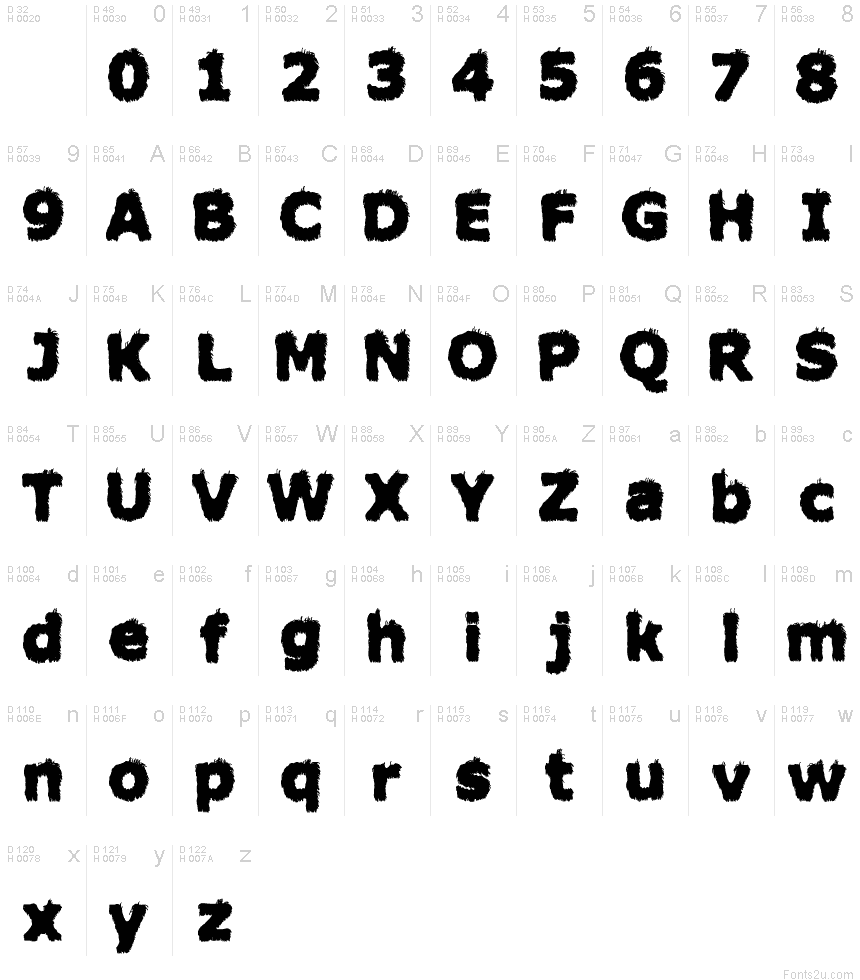
Hairy Monster Solid by Anthony Robinson of Anfa is a free cartoon display font with hulking letters wrapped in a shaggy, uneven fringe. Broad, dark shapes and lopsided edges make the lettering resemble a row of friendly creatures, with small tufts breaking up the tops and sides.
As an illustrated title, the font can turn monster-movie posters or children's game graphics into part of the cast rather than a neutral caption. Its furry silhouette also suits Halloween party materials, novelty snack packaging, and playful merchandise, especially when the lettering needs to echo creatures, costumes, or fuzzy character art.